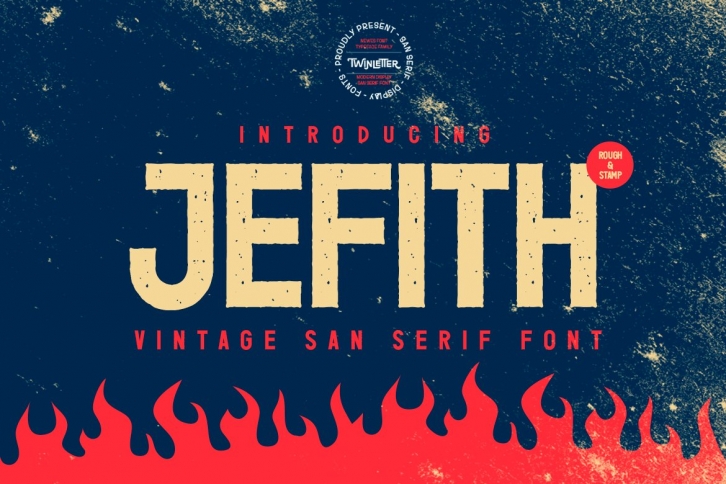
Jefith is a beautiful font that was designed by twinlettertype. It's a great choice for designers and creatives who need such a font. It was released on June 5, 2021 and the file size is 3.62 MB. Jefith may give a more youthful, expressive and casual look to your project. It is a very beautiful, refined, elegant, and high-quality font.